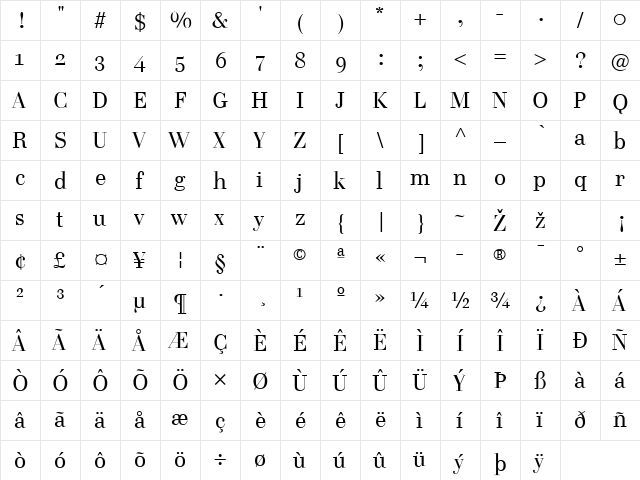
CelliniTitling-Regular Font Preview
CelliniTitling-Regular Regular
CelliniTitling-Regular Font Details
| Foundry | Albert Boton, published by FontShop International for the FontFont Library |
| Designer | Albert Boton |
Design Context for CelliniTitling-Regular Typeface
CelliniTitling-Regular takes a measured approach to typography — its balanced proportions and neutral character make it a reliable workhorse for both digital and print work.